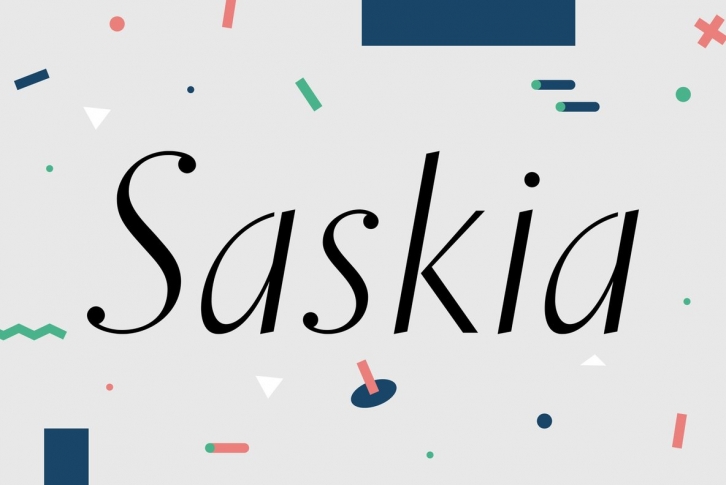
A tribute to Jan Tschichold. His hot-metal font Saskia was released in 1931 by Schelter & Giesecke. This elegant italic font was finally redrawn, extended and digitized for present-day use.